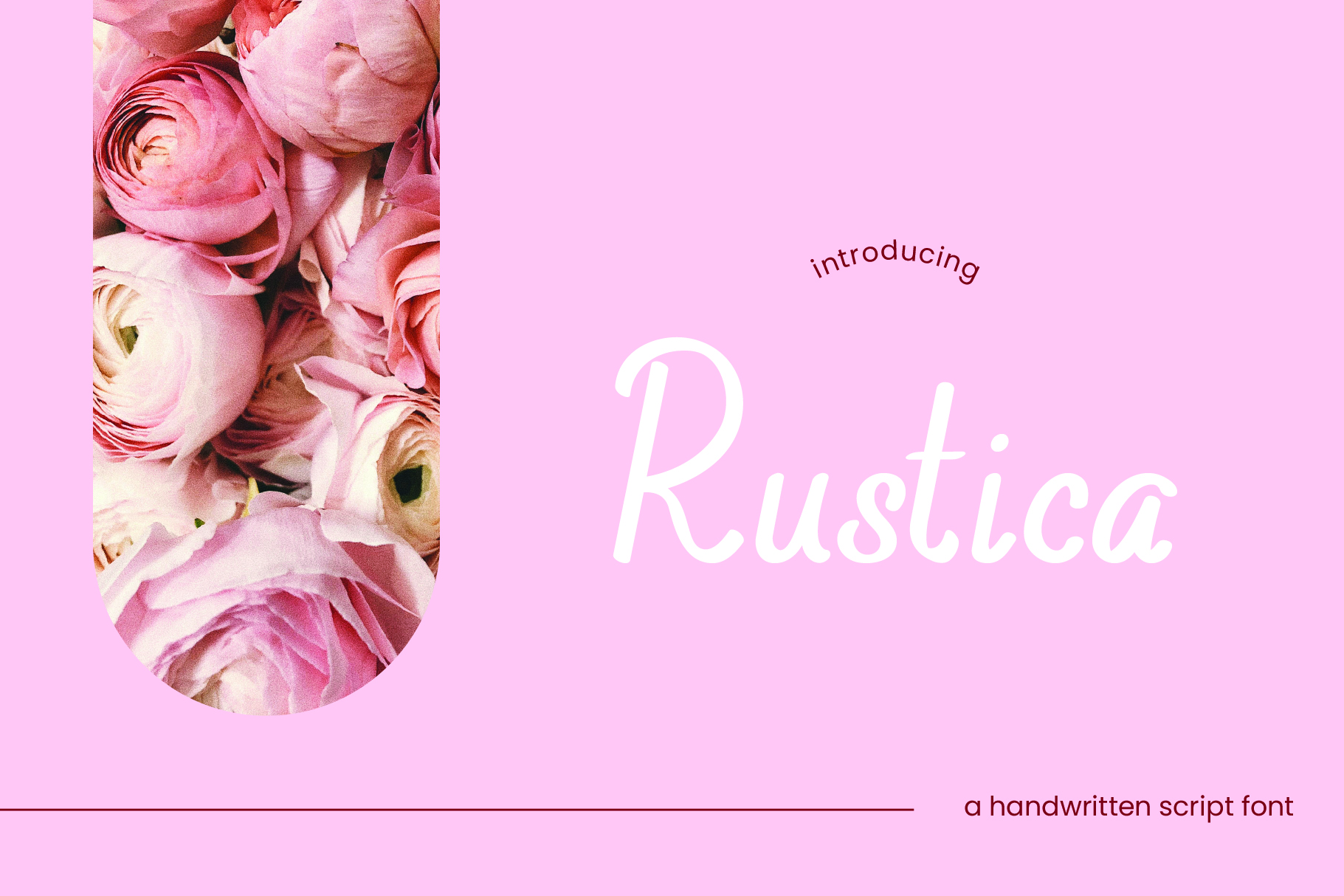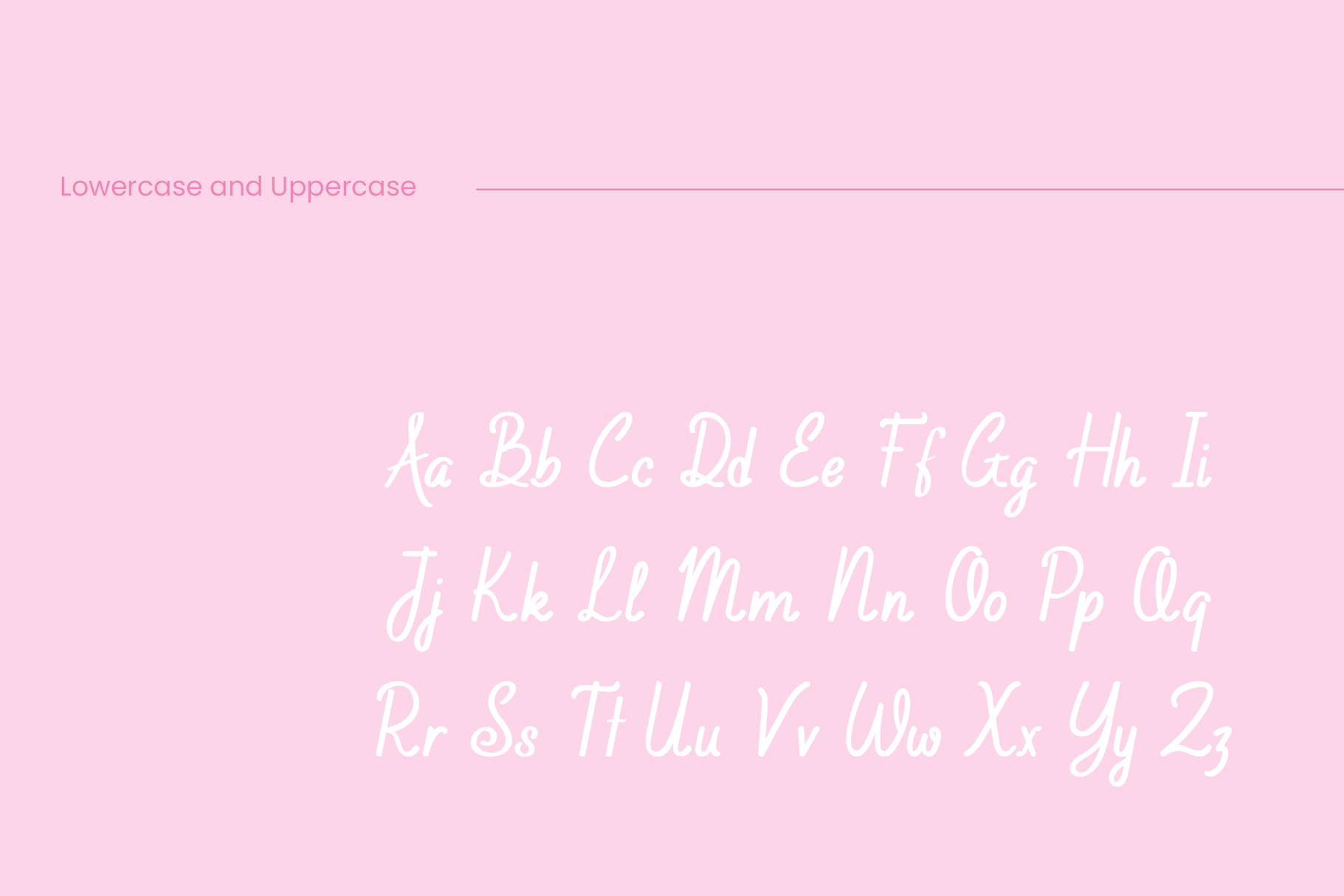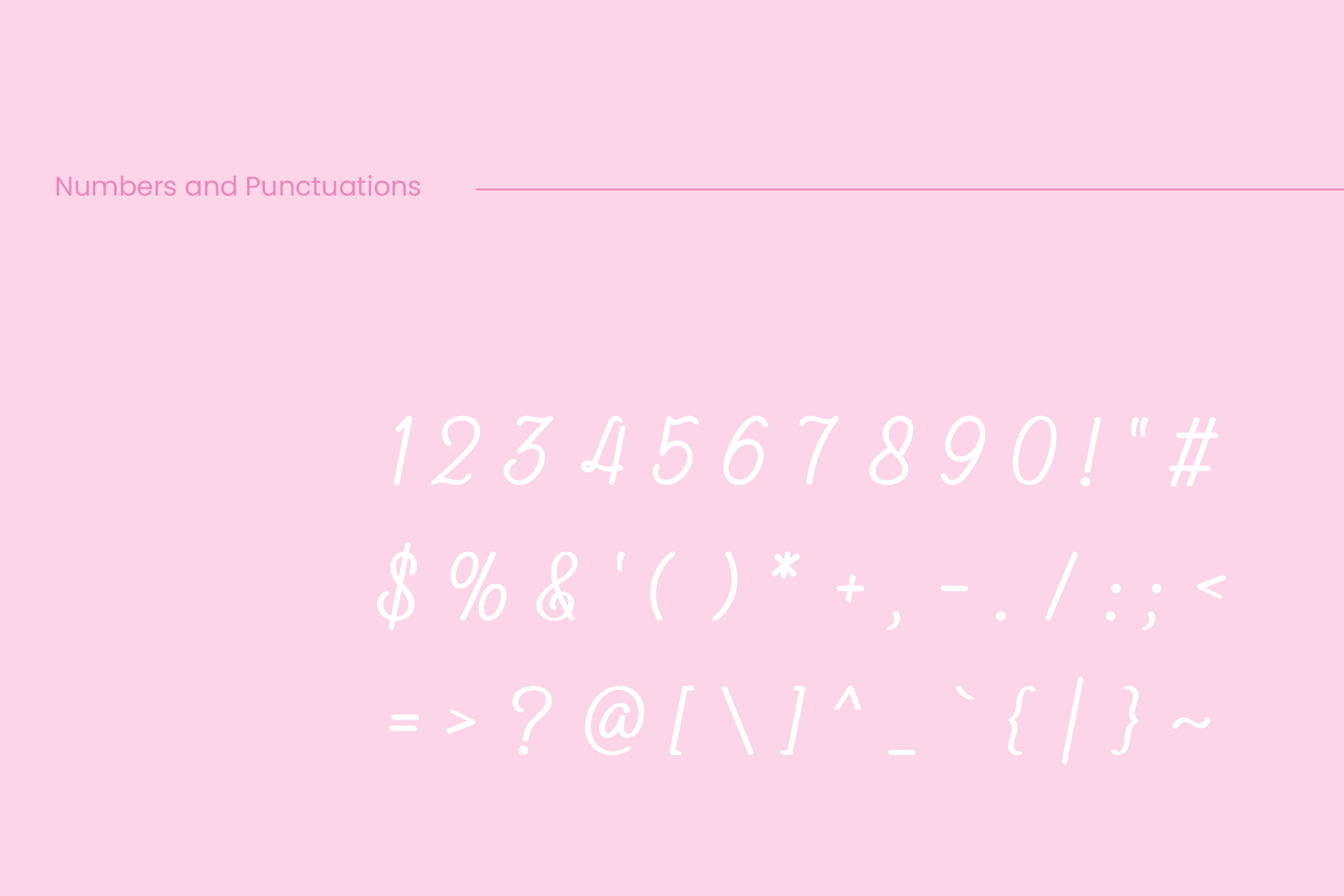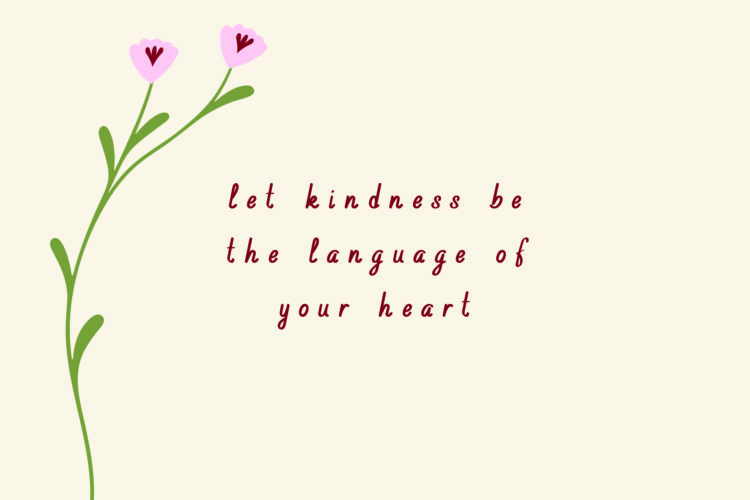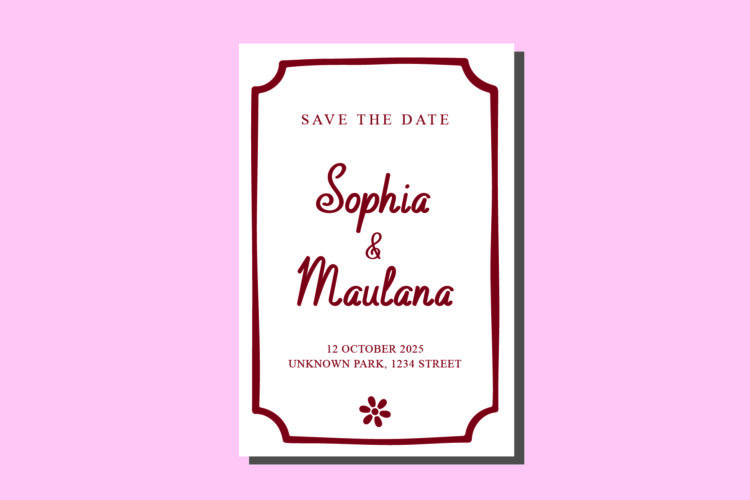
Rustica is a font that’s full of romance! Its elegant script lines and bold strokes create a sense of whimsy and flair, making it perfect for designs that need a touch of romance. Whether you’re creating wedding invitations, greeting cards, or love quotes, Rustica is the perfect font to add some romance to your designs.
The Rustica font package includes everything you need to get started, including uppercase and lowercase letters, numbers, and basic punctuations. With its comprehensive character set, you can create a wide range of designs with ease!